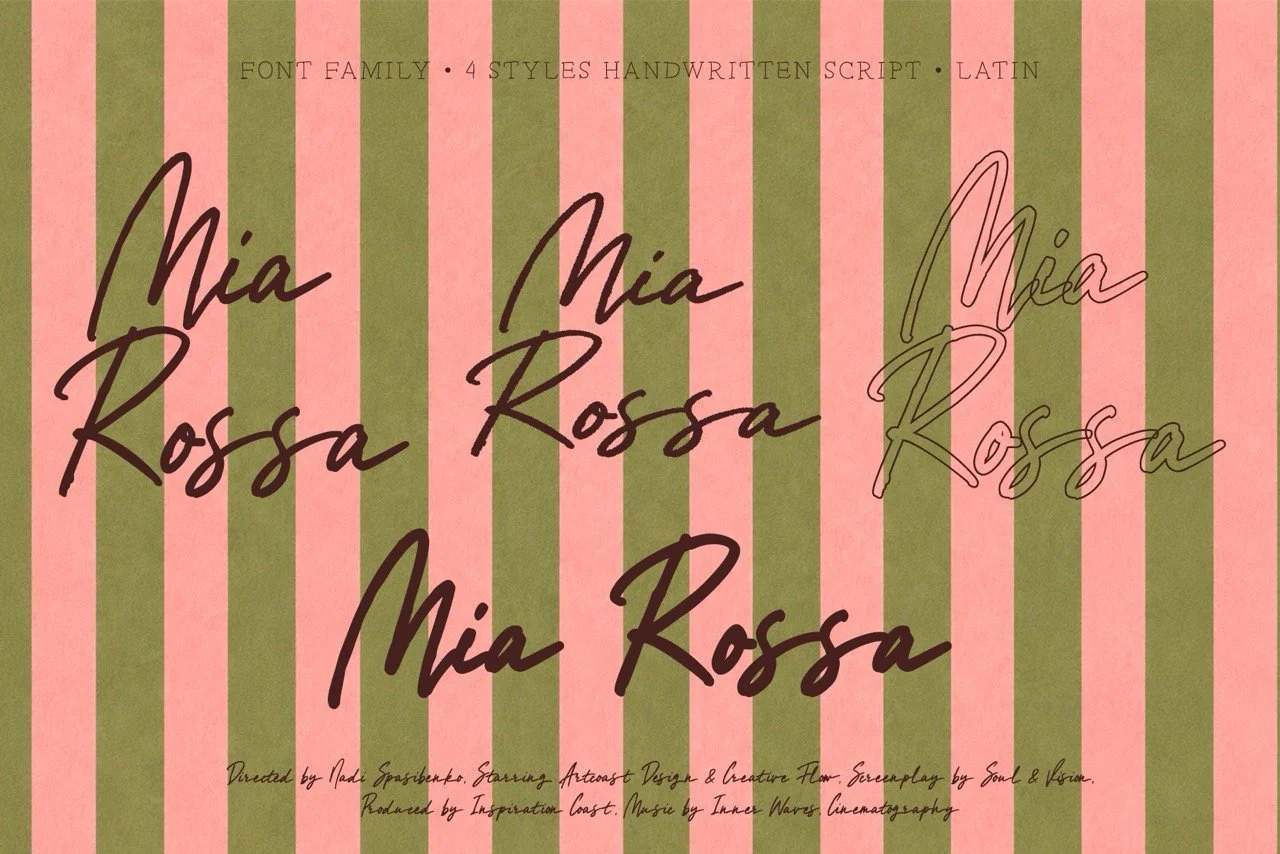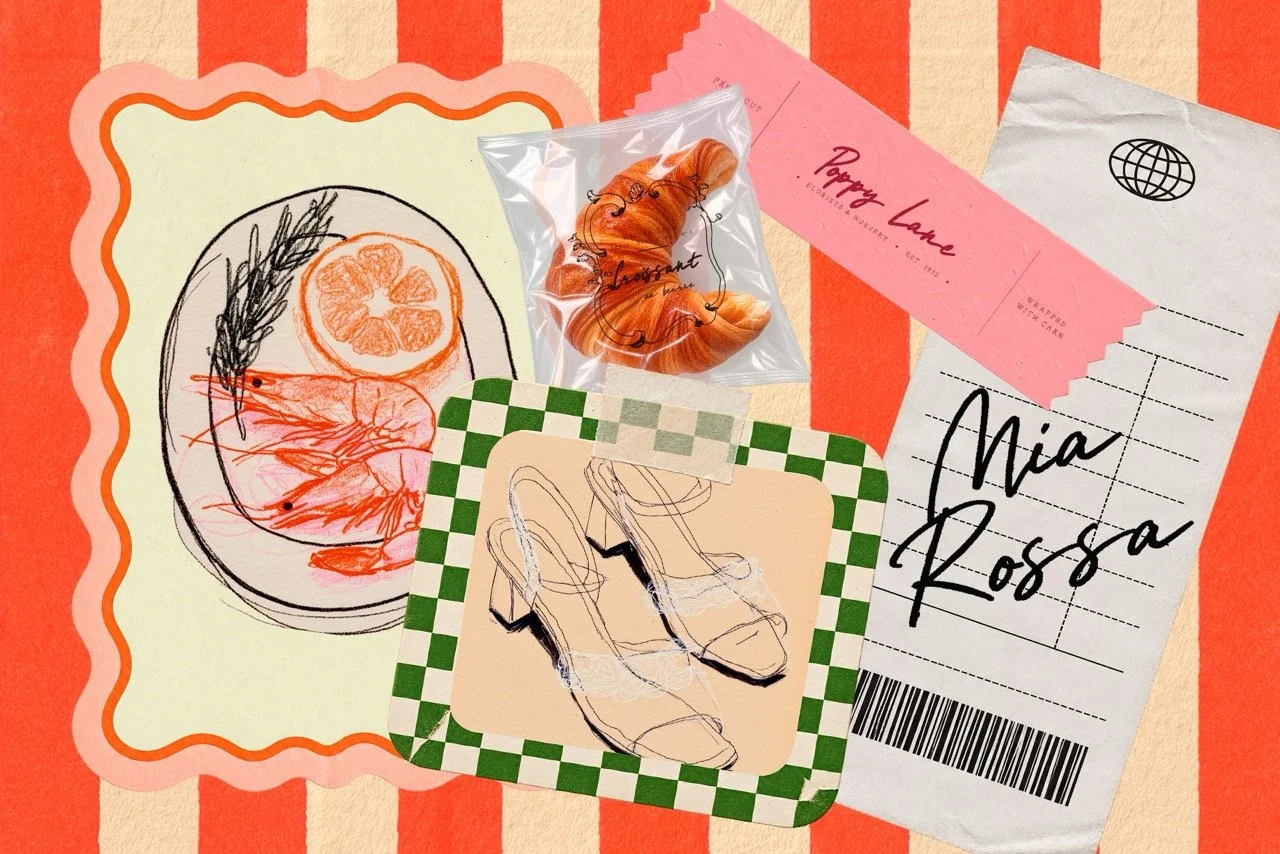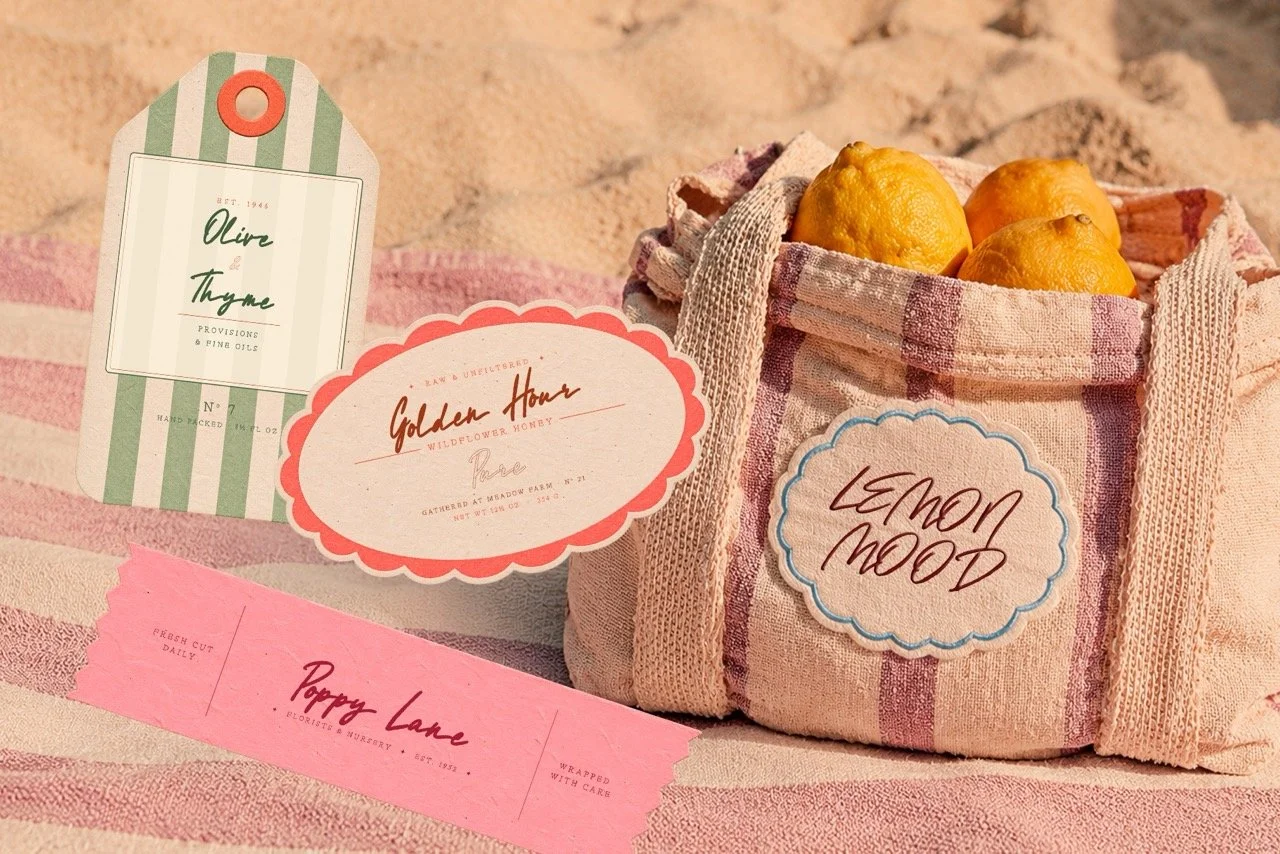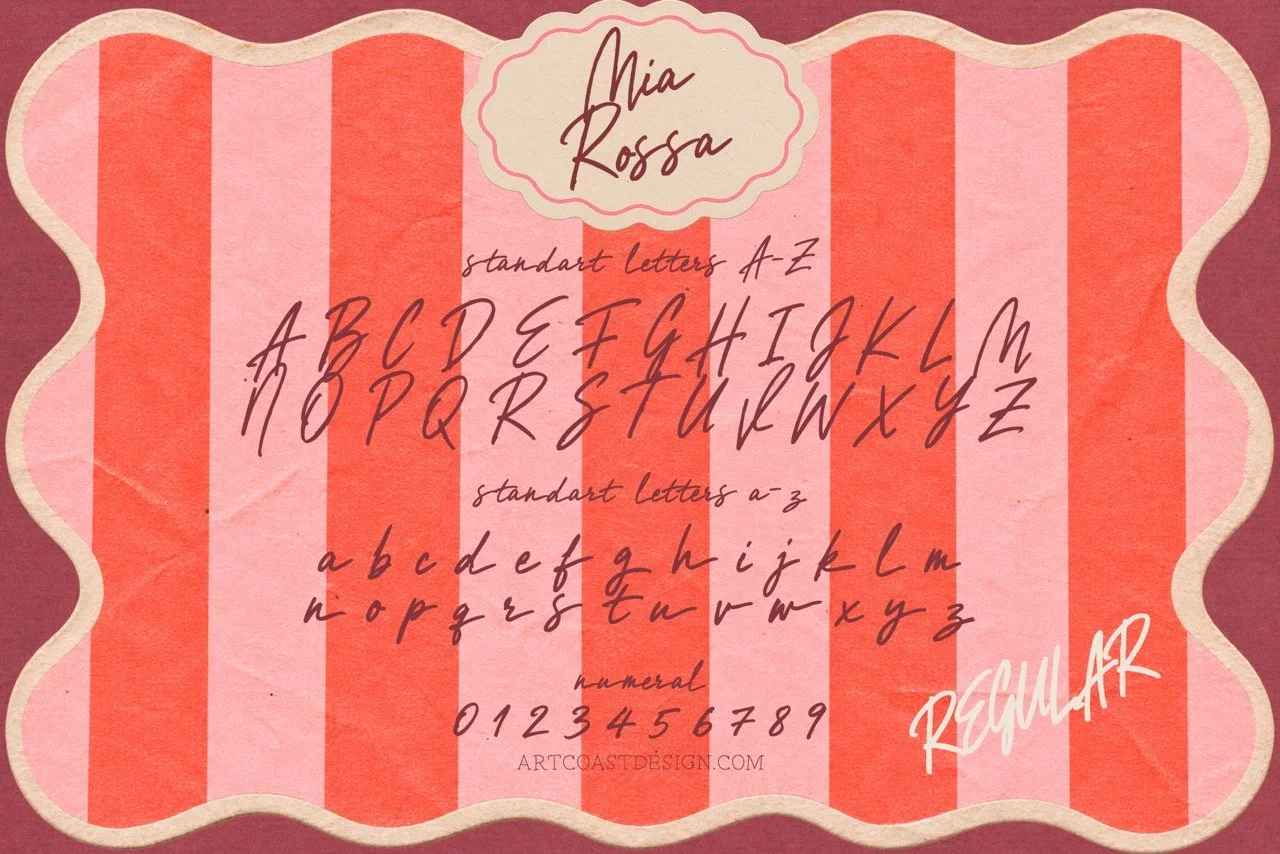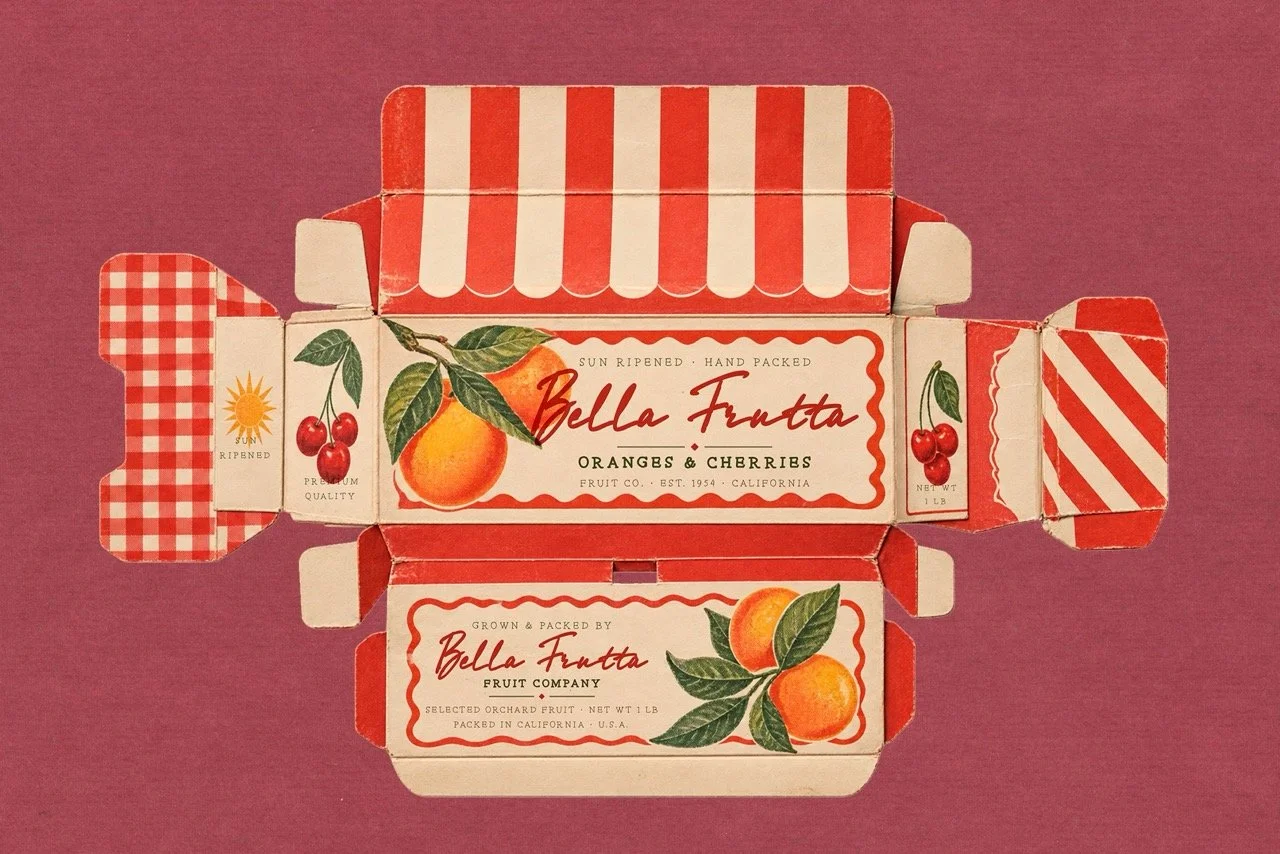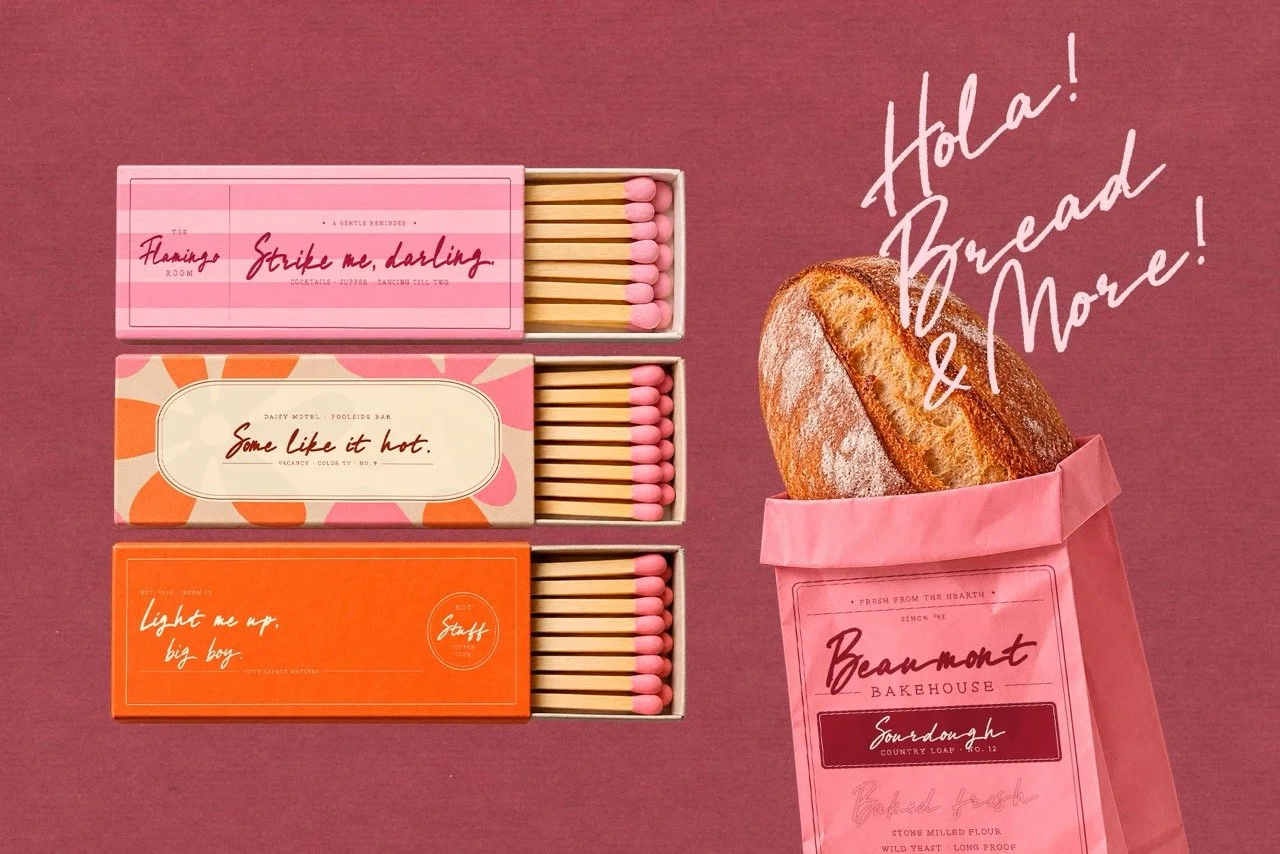
Mia Rossa — Expressive Handwritten Font Family
Mia Rossa is an expressive handwritten script family with a romantic, vintage-inspired character and an authentic hand-lettered feel. Warm, artistic, and intentionally imperfect, it brings personality and nostalgic charm to every design.
The family includes four complementary styles, giving you the freedom to create everything from delicate feminine lettering to bold headlines and distinctive layered compositions. Use the styles individually for a clean, consistent look or combine them to add contrast, depth, and visual interest.
With uppercase and lowercase letters, numerals, punctuation, and an extended Latin character set, Mia Rossa is ready for multilingual branding and creative projects.
Perfect for logos, fashion and beauty branding, wedding invitations, stationery, packaging, labels, boutique identities, social media graphics, posters, editorial layouts, greeting cards, quotes, wall art, book covers, websites, advertising, apparel, and merchandise.
Features:
Four complementary font styles
Expressive handwritten script
Authentic hand-lettered appearance
Romantic, vintage-inspired character
Uppercase and lowercase letters
Numerals and punctuation
Extended Latin character set
Created for designers, illustrators, independent brands, and creative businesses, Mia Rossa makes typography feel personal, expressive, and beautifully handmade.